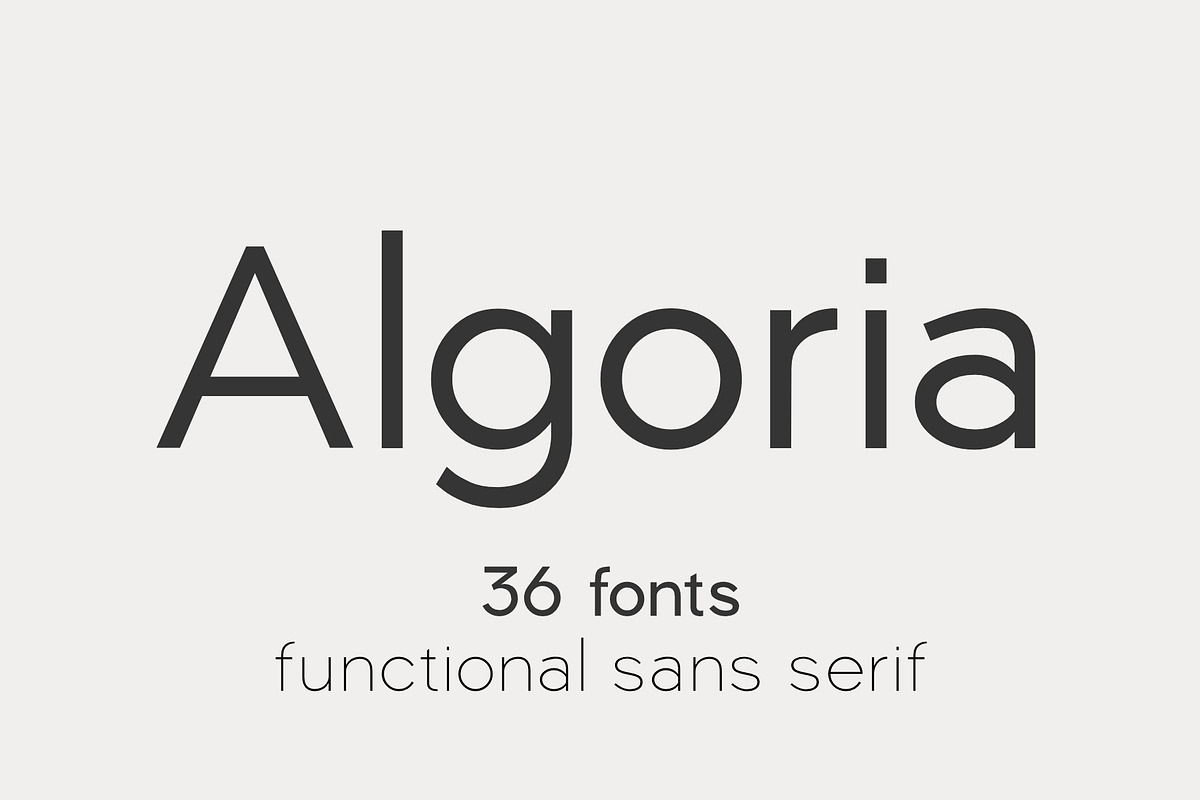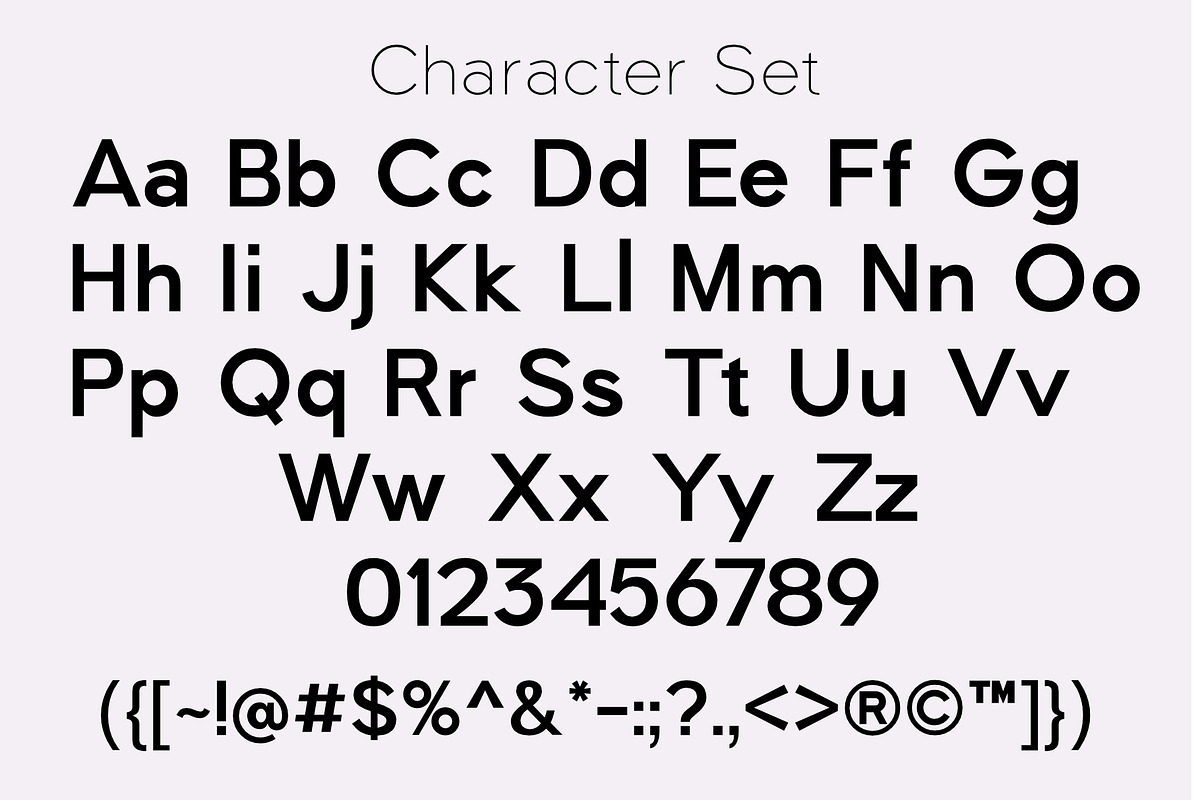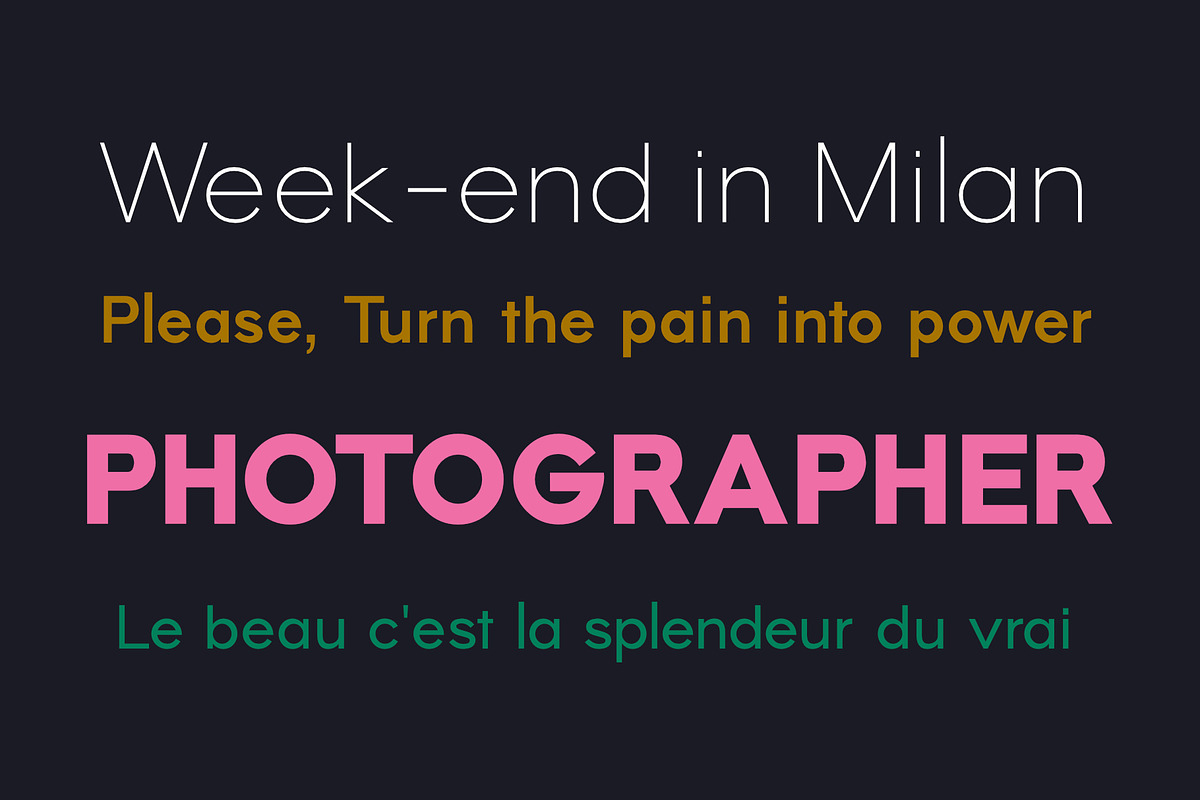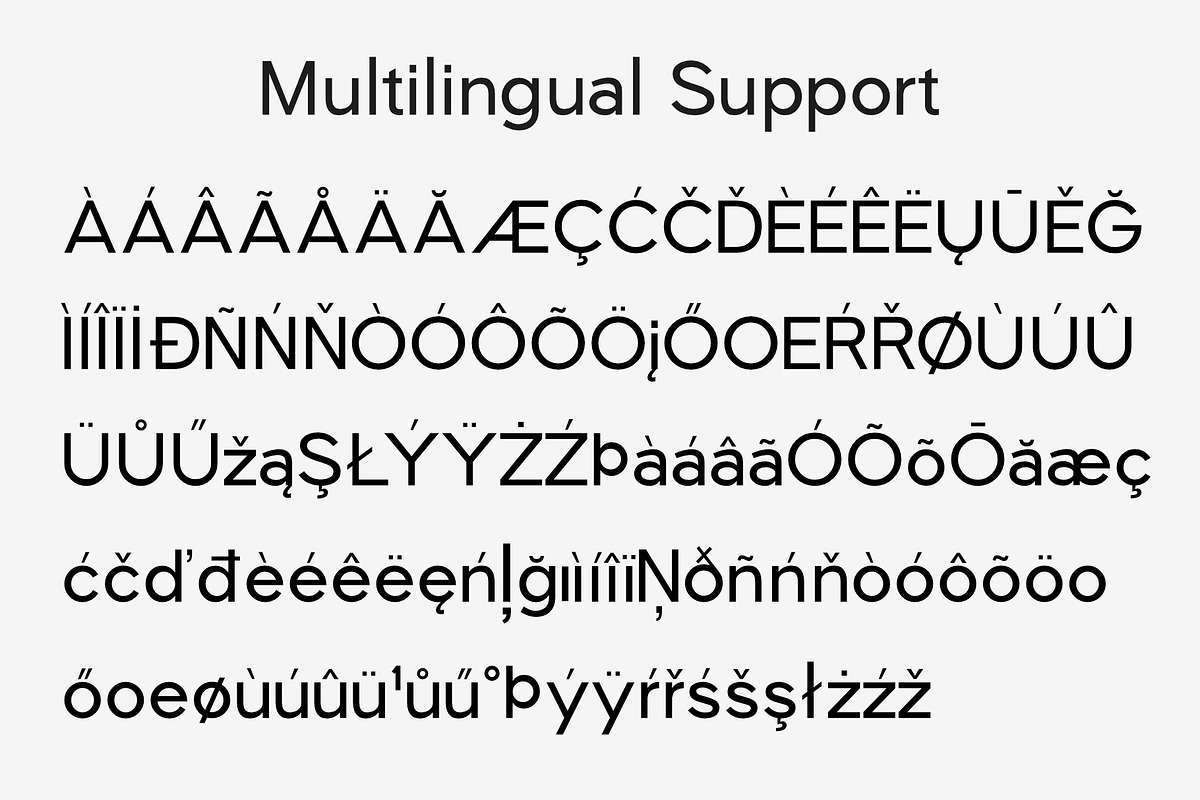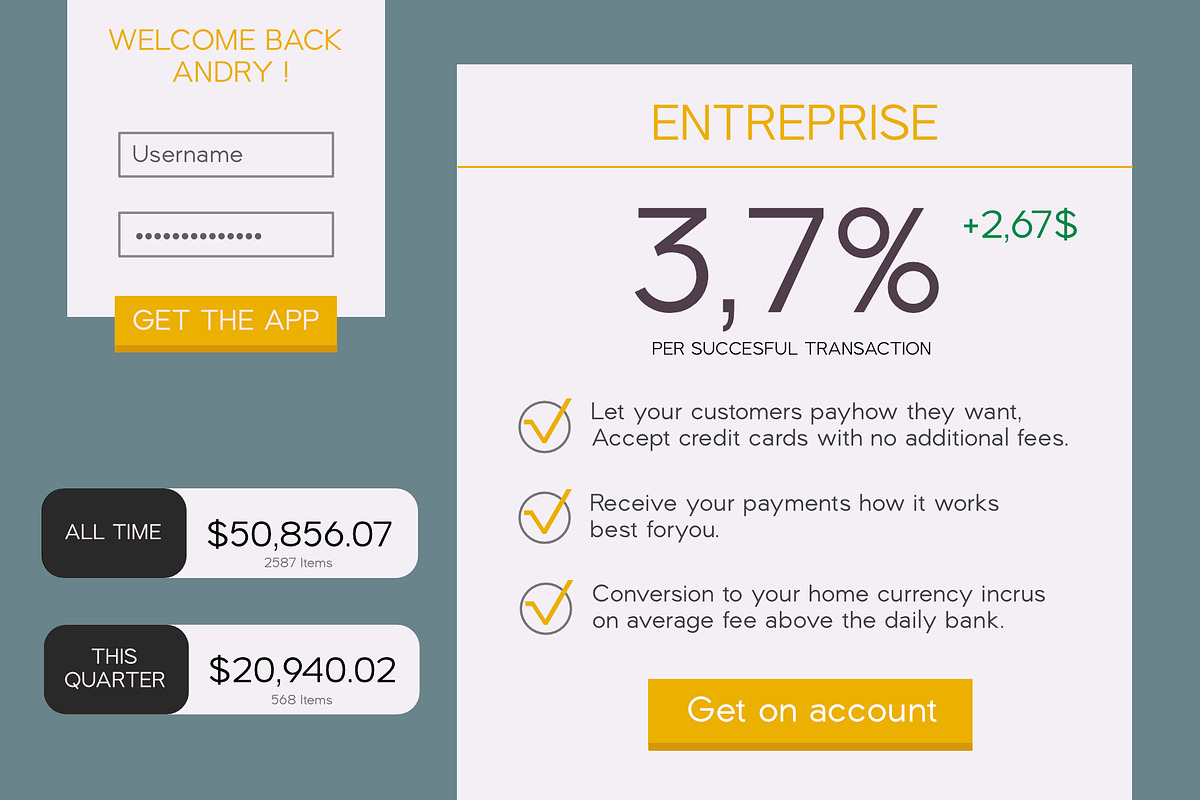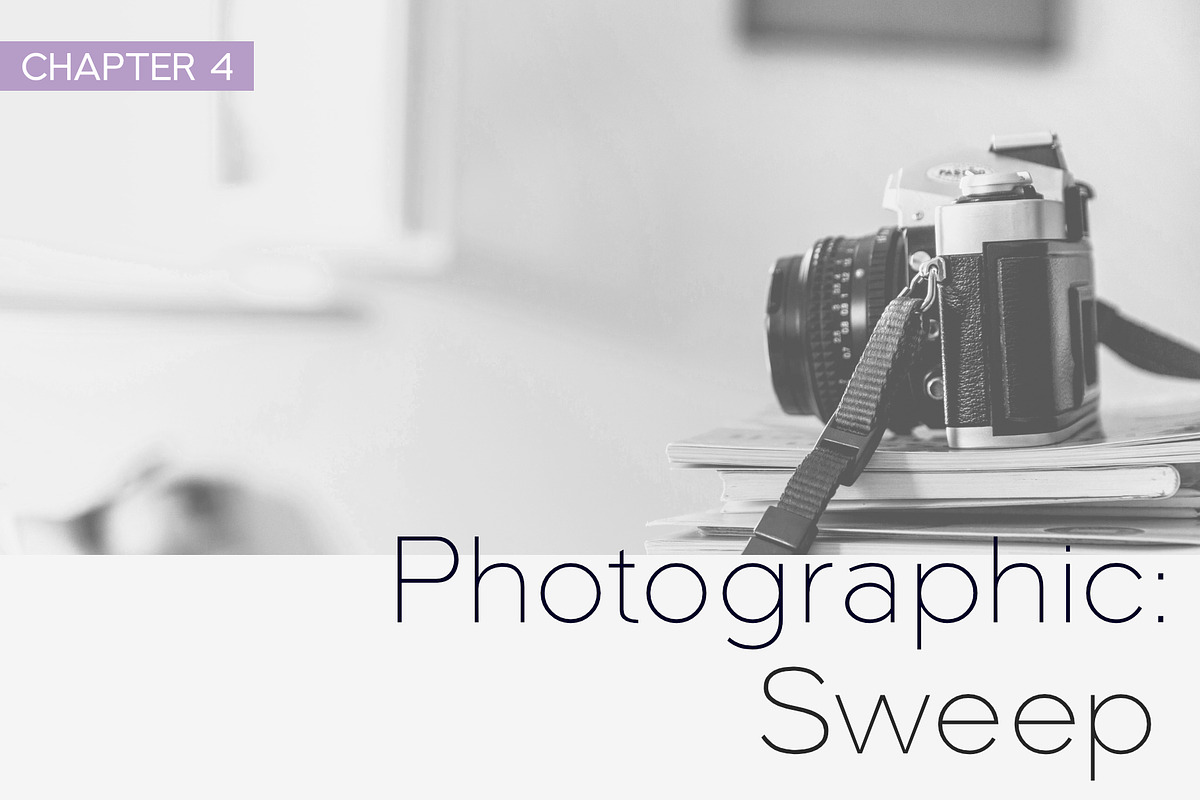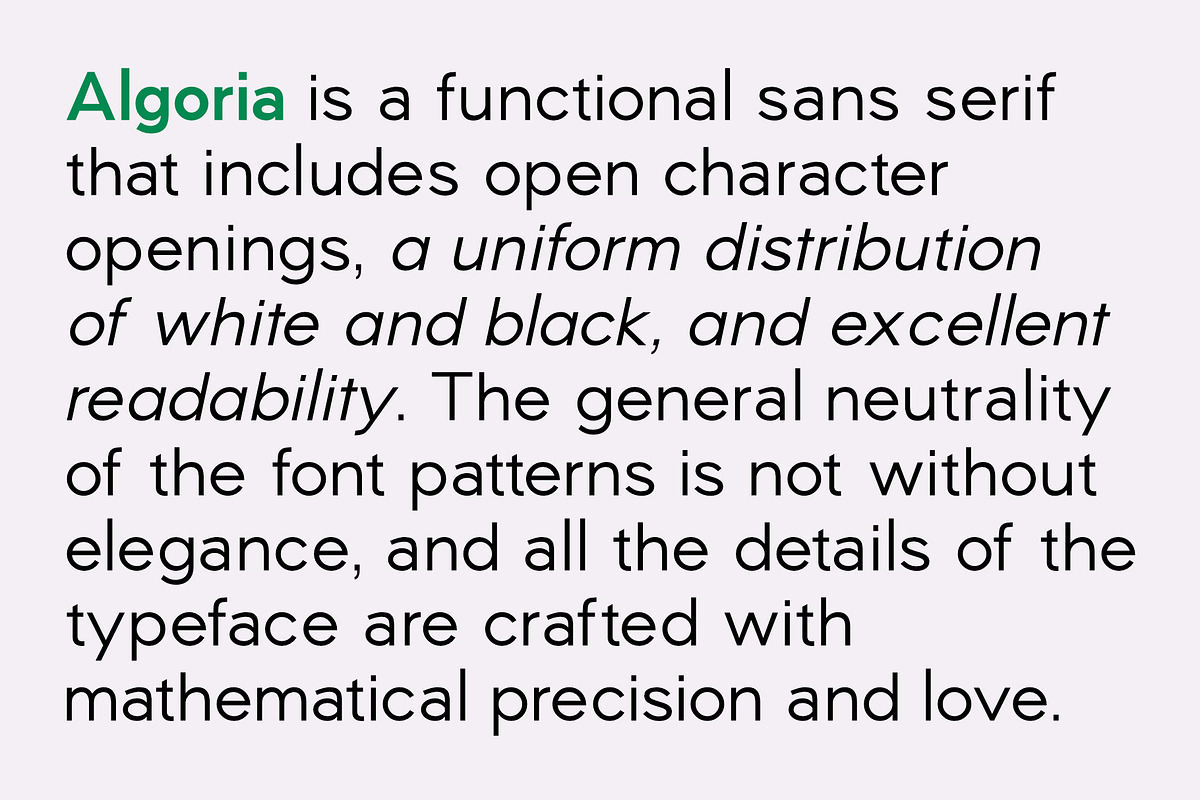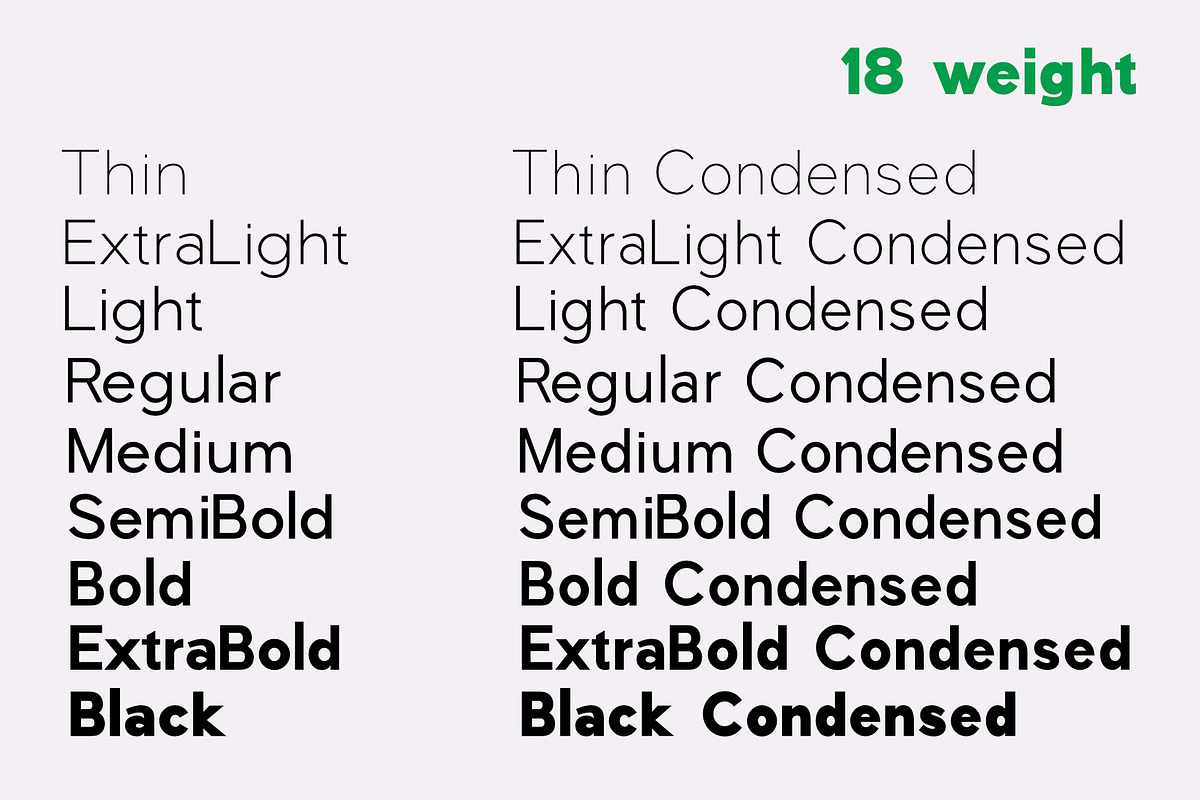
Algoria | Sans Serif Family 36 Font
Algoria is a functional sans serif that includes open character openings, a uniform distribution of white and black, and excellent readability. The general neutrality of the font patterns is not without elegance, and all the details of the typeface are crafted with mathematical precision and love. Typographic designs are developed for the widest possible range of tasks that any quality corporate font must accomplish.